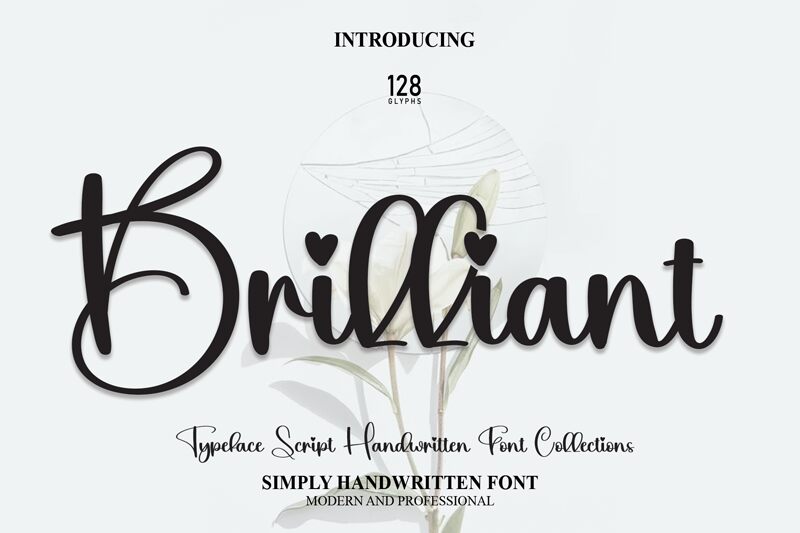
Brilliant
Brilliant, a captivating calligraphy font by Scratchones, exudes an air of elegance and sophistication. With its semi-light weight, this enchanting typeface adds a touch of grace to any project.
Perfect for wedding invitations, luxury brand logos, and sophisticated packaging designs, Brilliant effortlessly conveys a sense of refined beauty. Its fluid strokes and delicate curves create a harmonious balance that captivates the eye.
Whether used for branding or editorial projects, this calligraphy font is sure to leave a lasting impression with its timeless appeal.
Perfect for wedding invitations, luxury brand logos, and sophisticated packaging designs, Brilliant effortlessly conveys a sense of refined beauty. Its fluid strokes and delicate curves create a harmonious balance that captivates the eye.
Whether used for branding or editorial projects, this calligraphy font is sure to leave a lasting impression with its timeless appeal.